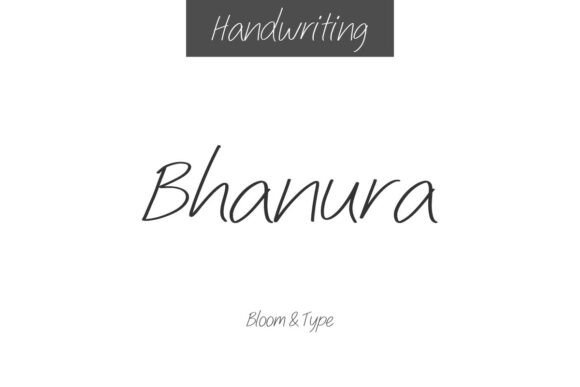
Bhanura Font: Elevate Your Designs with a Touch of Elegance and Authenticity
In the world of typography, fonts play a crucial role in conveying the tone and personality of a brand or creative project. Among the numerous fonts available, Bhanura stands out as a unique and captivating handwritten font that embodies the essence of natural flow and effortless creativity. In this article, we’ll delve into the characteristics, uses, and benefits of the Bhanura font, and explore how it can elevate your designs to new heights.
What is Bhanura Font?
Bhanura is a beautifully crafted handwritten font that exudes a sense of elegance and sophistication. Its light, slanted strokes and airy rhythm give every word a sense of motion, as if written in a moment of inspiration. This font is designed to express both simplicity and sophistication, making it an ideal choice for a wide range of creative projects.
Key Characteristics of Bhanura Font
- Handwritten style: Bhanura boasts a natural, handwritten look that adds a personal touch to any design.
- Light and airy: The font’s light strokes and airy rhythm create a sense of motion and fluidity.
- Slanted strokes: The slanted strokes give Bhanura a dynamic and energetic feel.
- Elegant and sophisticated: Despite its casual appearance, Bhanura conveys a sense of elegance and refinement.
Perfect for a Variety of Design Projects
Bhanura font is versatile and can be used in a wide range of design projects, including:
- Journals & Planners: Add a personal touch to your journals and planners with Bhanura’s elegant and handwritten style.
- Quotes & Posts: Use Bhanura to create inspiring and motivational quotes that capture the essence of your message.
- Branding & Logos: Bhanura’s unique style makes it an excellent choice for branding and logo design, helping you to establish a strong visual identity.
- Invitations & Greeting Cards: Create beautiful and heartfelt invitations and greeting cards with Bhanura’s elegant and sophisticated style.
- Packaging & Product Design: Use Bhanura to add a touch of elegance and refinement to your product packaging and design.
- Social Media Graphics: Bhanura is perfect for creating engaging and visually appealing social media graphics that capture the attention of your audience.
Benefits of Using Bhanura Font
So, why choose Bhanura font for your design projects? Here are some benefits of using Bhanura:
- Balances elegance and authenticity: Bhanura strikes the perfect balance between elegance and authenticity, making it suitable for a wide range of design projects.
- Adds warmth and creativity: Bhanura’s handwritten style adds a touch of warmth and creativity to your designs, making them more engaging and relatable.
- Conveys human connection: Bhanura’s natural and effortless style conveys a sense of human connection, making your message more personal and accessible.
- Versatile and adaptable: Bhanura can be used in various design projects, from digital graphics to print materials.
Tips for Using Bhanura Font Effectively
To get the most out of Bhanura font, here are some tips to keep in mind:
- Use it in combination with other fonts: Bhanura pairs well with other fonts, so feel free to experiment with different font combinations to create visual interest.
- Adjust the font size and style: Experiment with different font sizes and styles to create visual hierarchy and emphasis.
- Use it for headlines and body text: Bhanura is suitable for both headlines and body text, making it a versatile choice for a wide range of design projects.
In conclusion, Bhanura font is a beautiful and versatile handwritten font that can elevate your designs to new heights. Its elegant and sophisticated style, combined with its natural and effortless flow, make it perfect for a wide range of creative projects. Whether you’re designing journals, quotes, branding materials, or social media graphics, Bhanura is an excellent choice. So, why not give Bhanura a try and experience the benefits of this stunning font for yourself?